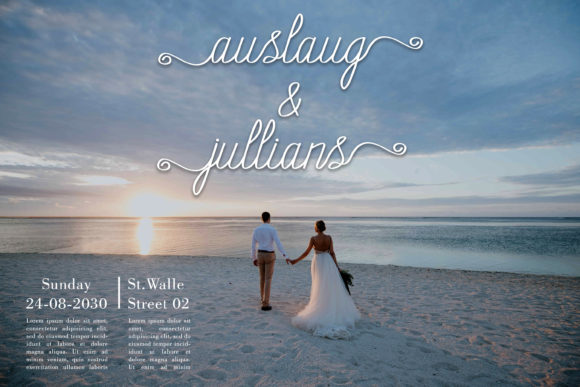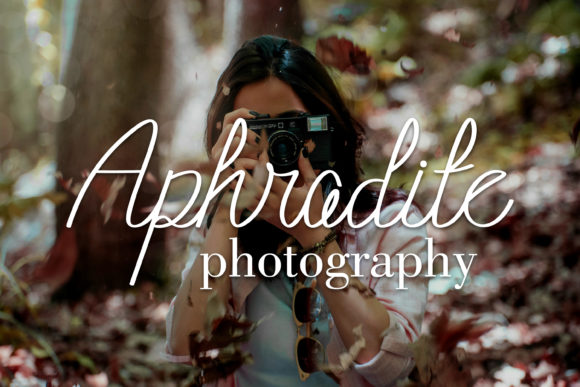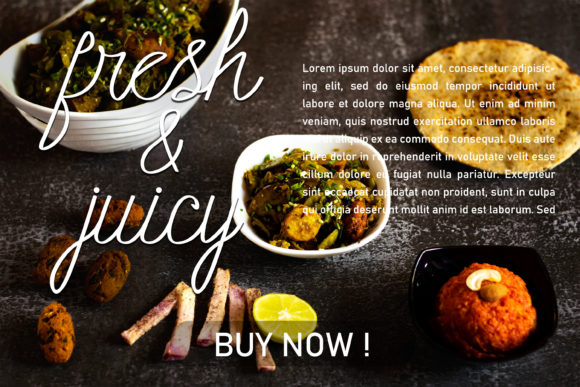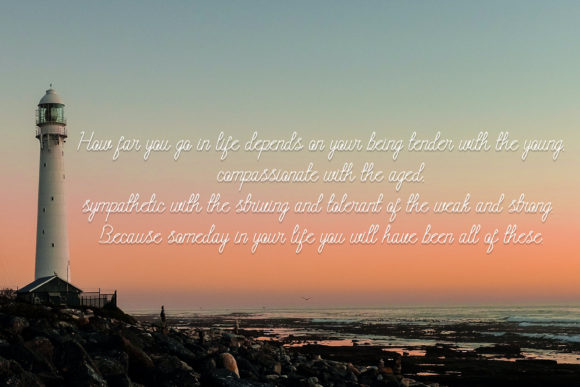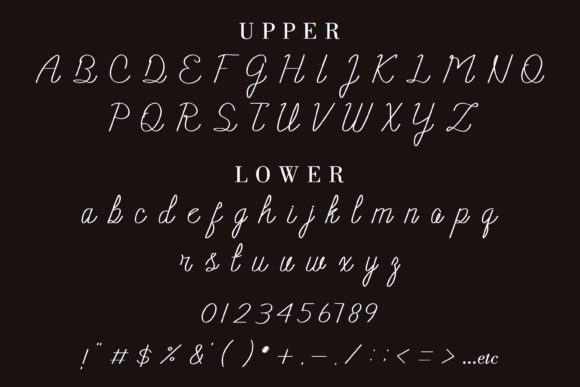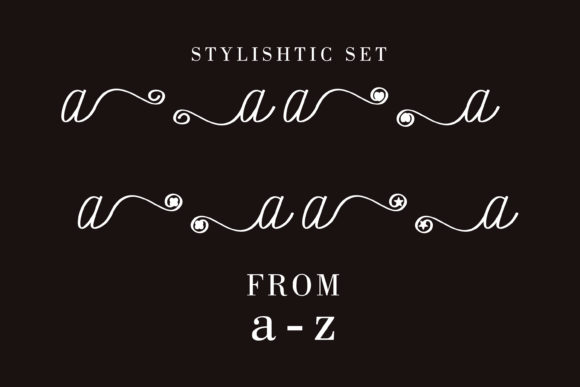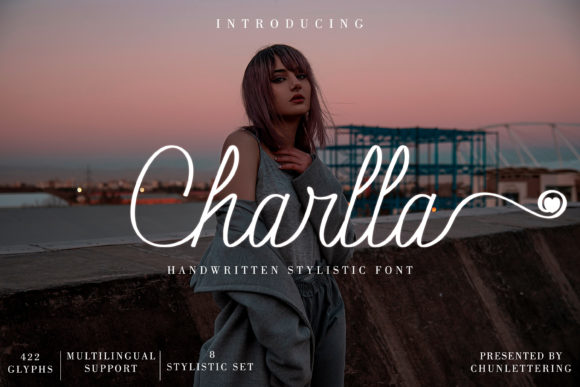
Introducing Charlla Font: The Epitome of Elegance and Sophistication
In the realm of typography, few fonts manage to convey the essence of elegance and sophistication as effectively as Charlla Font. This exquisite handwritten script font is meticulously crafted with neat, elegant, and delicate strokes, making it an ideal choice for designers and crafters seeking to add a touch of refinement to their projects. Whether you’re working on displays, wedding invitations, logos, advertisements, social media posts, product packaging designs, labels, stationery, photography watermarks, greeting cards, websites, or more, Charlla Font is the perfect companion to elevate your creative endeavors.
The Characteristics of Charlla Font
Charlla Font boasts a unique set of characteristics that set it apart from other fonts in its category. Its handwritten script style exudes a sense of personal touch and warmth, making it perfect for projects that require a humanizing element. The font’s neat and delicate strokes ensure that it remains legible and visually appealing, even at smaller sizes. This versatility makes Charlla Font an excellent choice for a wide range of applications, from digital media to print materials.
Charlla Font’s elegance and sophistication make it an excellent choice for various creative projects. Here are some of the ways you can utilize this beautiful font:
• Displays: Use Charlla Font to create stunning displays that capture the attention of your audience. Its elegant strokes and refined appearance make it perfect for headlines, titles, and promotional materials.
• Wedding Invitations: Add a touch of romance and sophistication to your wedding invitations with Charlla Font. Its delicate strokes and handwritten script style create a warm and inviting atmosphere, perfect for special occasions.
• Logos: Charlla Font is an excellent choice for logos that require a touch of elegance and refinement. Its unique appearance will help your brand stand out and leave a lasting impression on your customers.
• Advertisements: Use Charlla Font to create eye-catching advertisements that capture the attention of your target audience. Its refined appearance and elegant strokes make it perfect for promoting products or services.
• Social Media Posts: Elevate your social media posts with Charlla Font’s elegant and sophisticated appearance. Its handwritten script style adds a personal touch to your messages, making them more engaging and relatable.
• Product Packaging Designs: Charlla Font is perfect for product packaging designs that require a touch of elegance and refinement. Its delicate strokes and refined appearance make it an excellent choice for labels, tags, and other packaging materials.
• Labels: Use Charlla Font to create beautiful labels that add a touch of sophistication to your products. Its elegant appearance and refined strokes make it perfect for product labels, address labels, and more.
• Stationery: Charlla Font is an excellent choice for stationery, including letterheads, notebooks, and journals. Its elegant appearance and refined strokes create a sense of refinement and sophistication.
• Photography Watermarks: Add a touch of elegance to your photography watermarks with Charlla Font. Its delicate strokes and refined appearance make it perfect for protecting your images while maintaining their visual appeal.
• Greeting Cards: Use Charlla Font to create beautiful greeting cards for special occasions. Its handwritten script style and elegant strokes make it perfect for expressing your thoughts and feelings.
• Websites: Charlla Font is an excellent choice for websites that require a touch of elegance and sophistication. Its refined appearance and elegant strokes make it perfect for headings, titles, and other website elements.
Why Choose Charlla Font?
Charlla Font offers a unique combination of elegance, sophistication, and versatility, making it an excellent choice for designers and crafters. Here are some reasons why you should choose Charlla Font for your creative projects:
• Unique Appearance: Charlla Font boasts a unique and distinctive appearance that sets it apart from other fonts.
• Elegant Strokes: Its delicate strokes and refined appearance make it perfect for projects that require a touch of elegance and sophistication.
• Versatility: Charlla Font is versatile and can be used for a wide range of applications, from digital media to print materials.
• Legibility: Its neat and delicate strokes ensure that Charlla Font remains legible and visually appealing, even at smaller sizes.
In conclusion, Charlla Font is an exquisite handwritten script font that offers a unique combination of elegance, sophistication, and versatility. Its delicate strokes and refined appearance make it perfect for a wide range of creative projects, from displays and wedding invitations to logos and websites. Whether you’re a designer or crafter, Charlla Font is an excellent choice for adding a touch of refinement and elegance to your work.